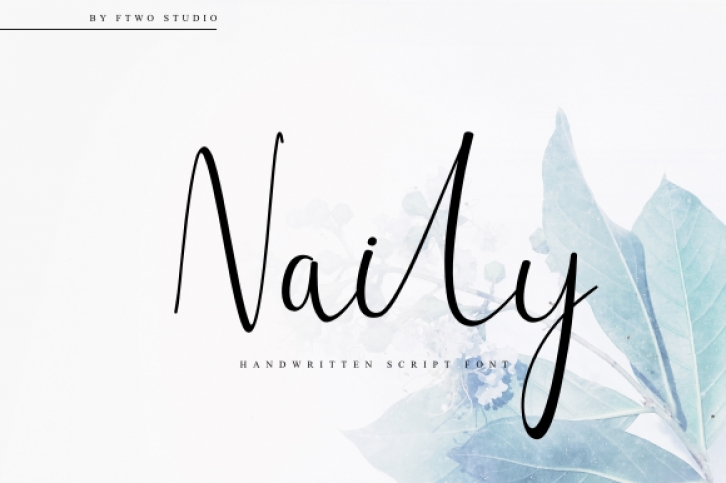
Give your designs an authentic handcrafted feel with Naily. It’s a beautiful handwritten script with an elegant touch.
It’s perfectly suited for signatures, stationery, logos, typography quotes, magazine or book covers, clothing, branding, packaging designs and more.